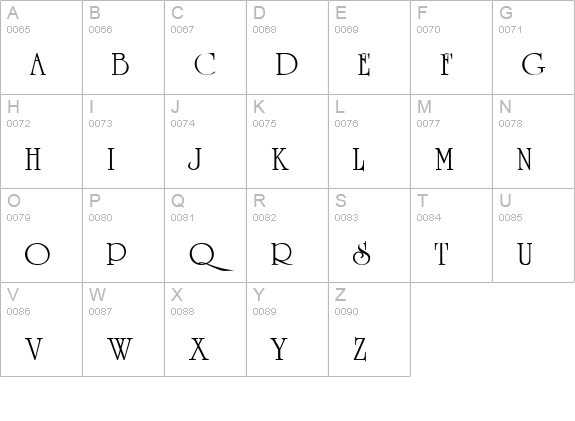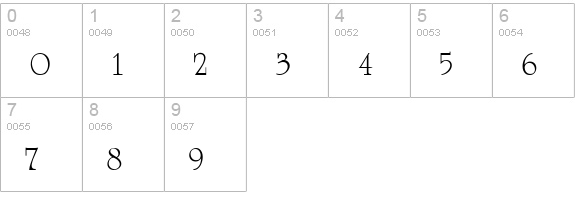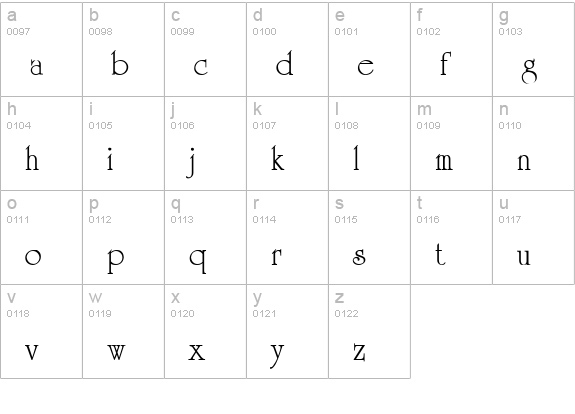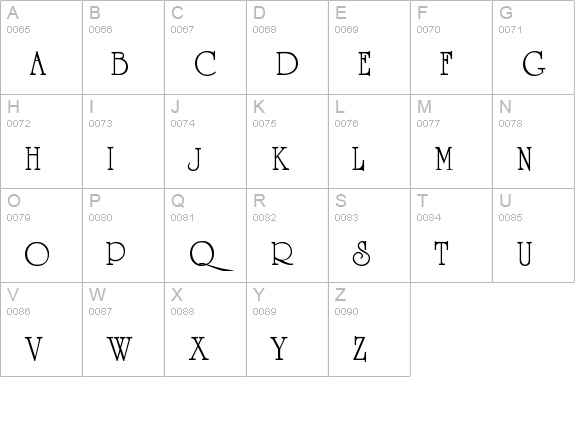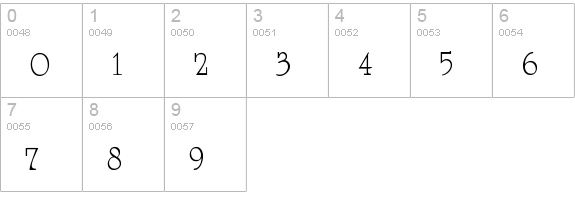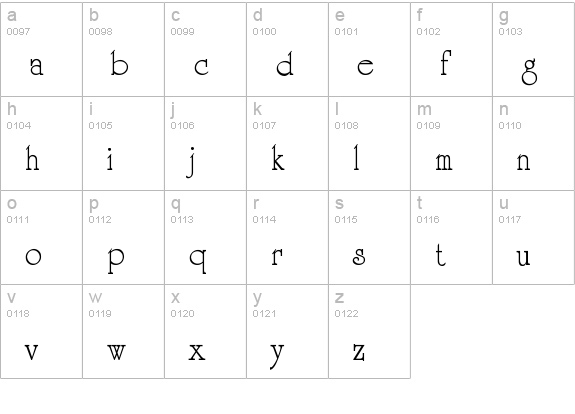
VI University Font Details
VI University is a stunning font that exudes elegance and sophistication. Its sleek and modern design makes it perfect for a wide range of projects, from logos and branding to website headers and social media posts. The clean lines and balanced letterforms give VI University a professional and polished look that will instantly elevate any design. What sets VI University apart is not only its exceptional aesthetics, but also its accessibility. This remarkable font is available for free download at FontsMarket.com, making it easily accessible to designers and creatives from all walks of life. Whether you're a seasoned professional or a budding artist, VI University empowers you to create beautiful and impactful designs without breaking the bank. With VI University, you have the freedom to unleash your creativity and explore endless possibilities. Its versatility allows it to seamlessly blend into various design styles, whether you're going for a minimalist and contemporary look or a more traditional and classic feel. The geometric shapes and carefully crafted details make each letter stand out, ensuring that your message is communicated with utmost clarity and style. Adding VI University to your font collection is a no-brainer. Its timeless appeal and effortless legibility make it a reliable choice for any design project. Whether you're crafting a logo for a high-end brand or designing invitations for a special event, VI University will add a touch of sophistication and refinement that will leave a lasting impression. So why wait? Head over to FontsMarket.com and download VI University for free today. Elevate your designs, showcase your creativity, and make a statement with this exceptional font. With VI University, the possibilities are endless, and your design journey is about to reach new heights.